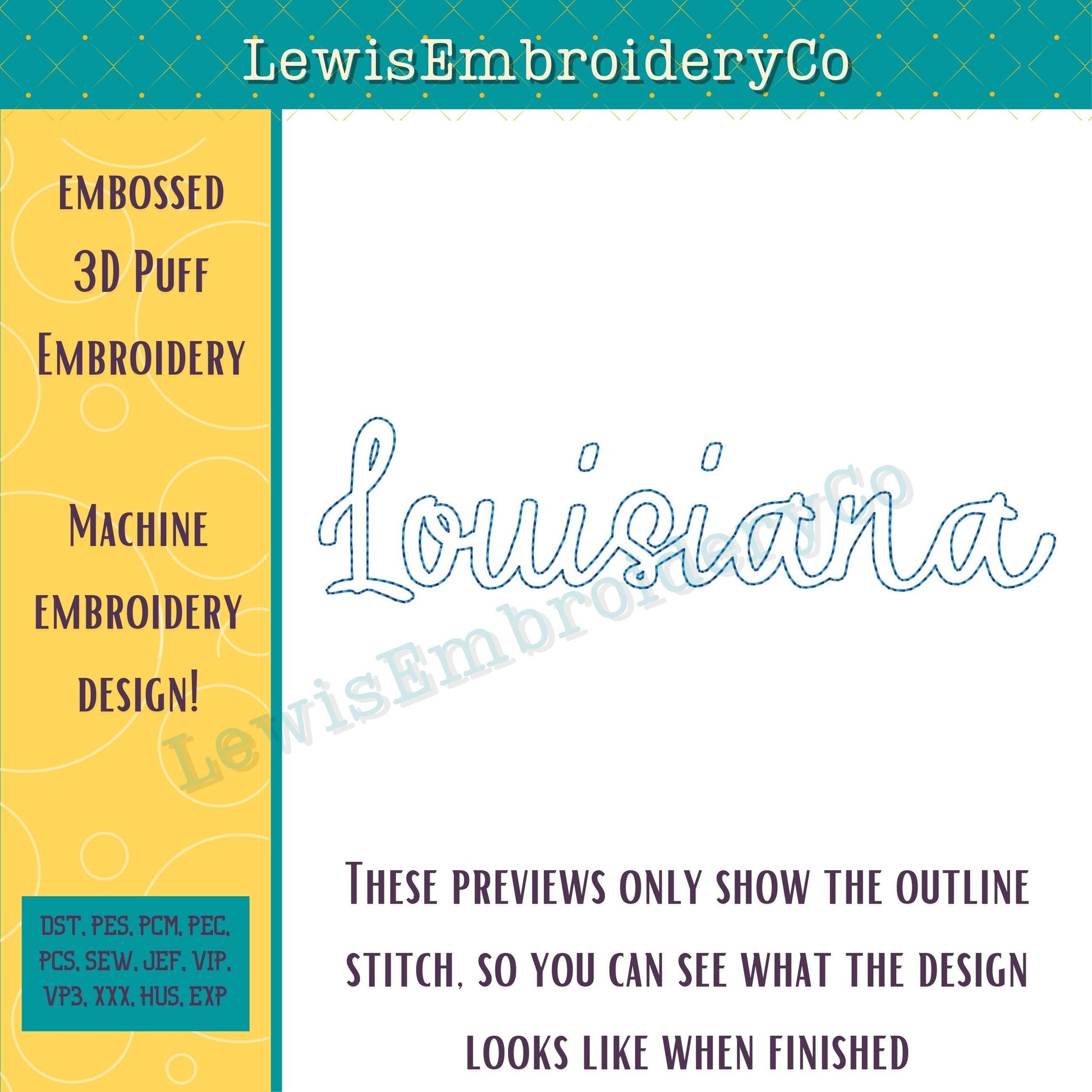
"LOUISIANA" Embossed 3D Puff, Machine Embroidery Design - NOT Full Font (PDF Tutorial Included)
Get eye-catching results with this Embossed 3D Puff design. The embossed look is trending right now, so this is the perfect time to add this new type of product to your existing collections!
- “Louisiana” machine embroidery design (not full font)
- Embossed style is trending
- Easy method will give you quick and professional results
- Great for sweatshirts, t-shirts, blankets and more